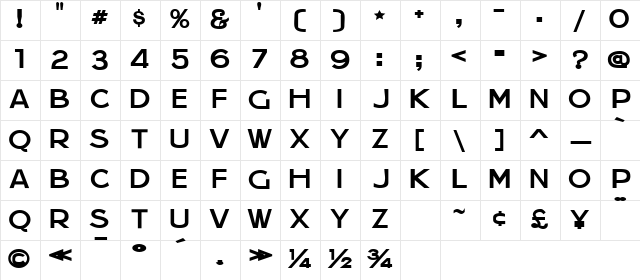
Jera Sans JL Regular
Foundry: Jeff's Fonts & Dingbats
Designer: Jeffrey N. Levine
Design Context for Jera Sans JL
Jera Sans JL is a composed and adaptable typeface that performs quietly and consistently across a wide range of design contexts.